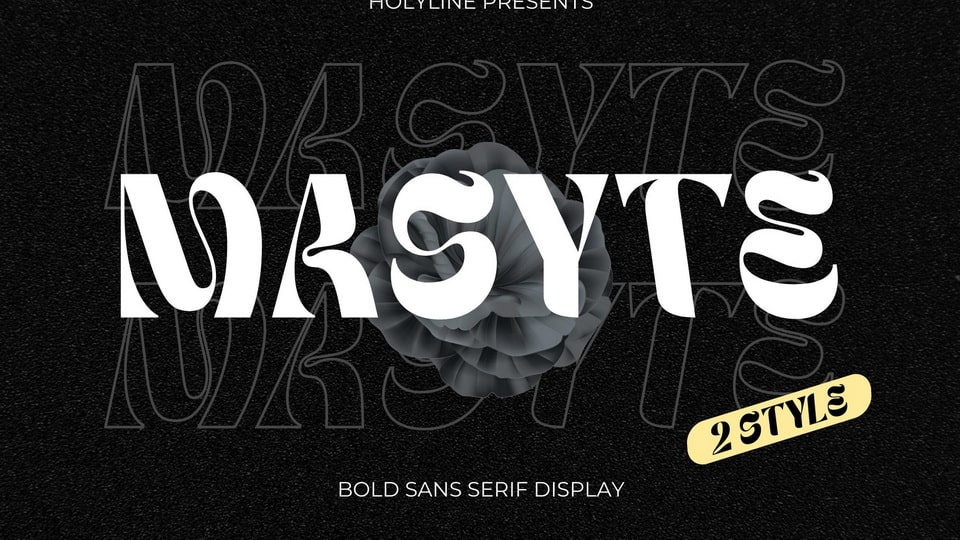
Download Masyte font, an exquisite and fancy sans serif typeface with a luxurious and elegant design. With its refined and sophisticated style, Masyte font is sure to make a statement and leave a lasting impression.
Designer: Holyline Design